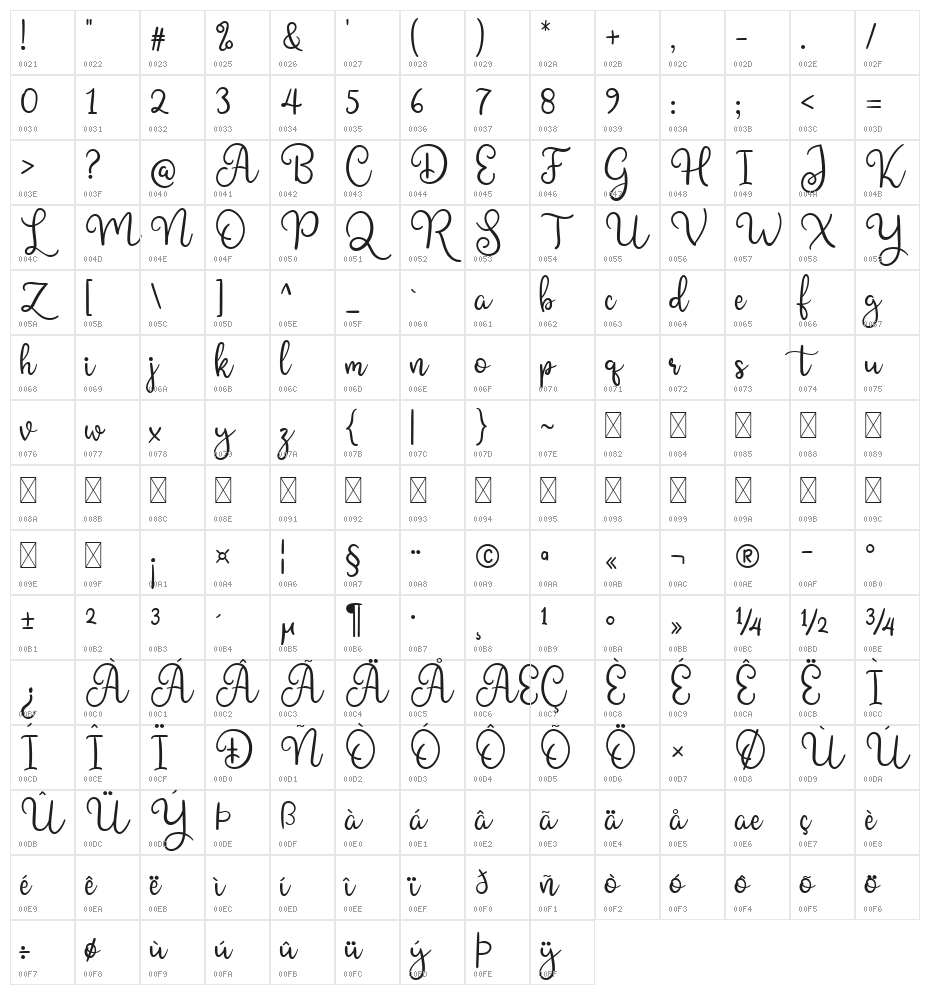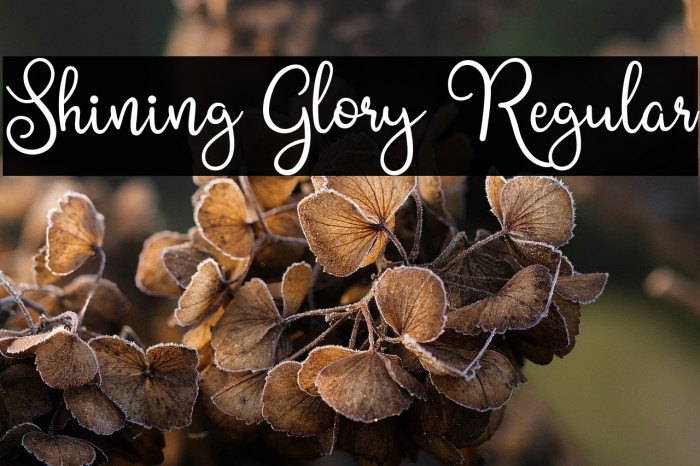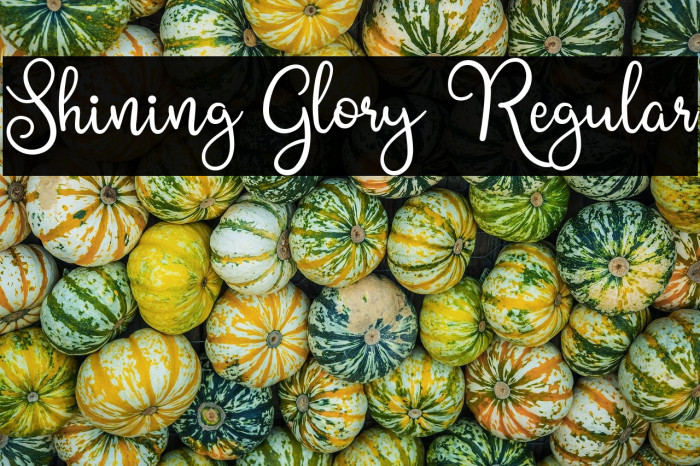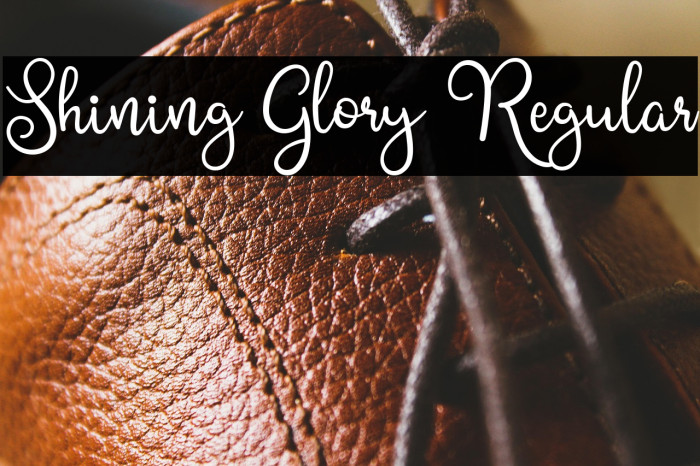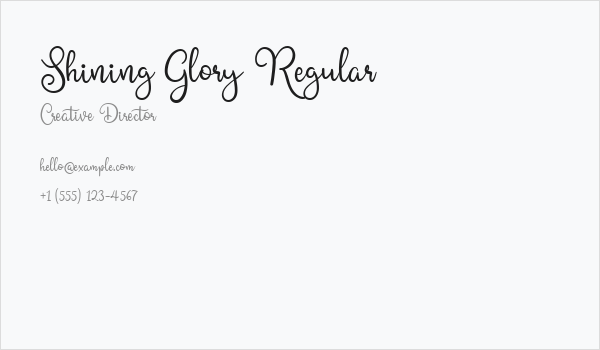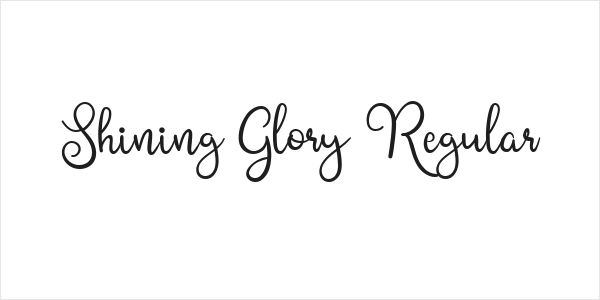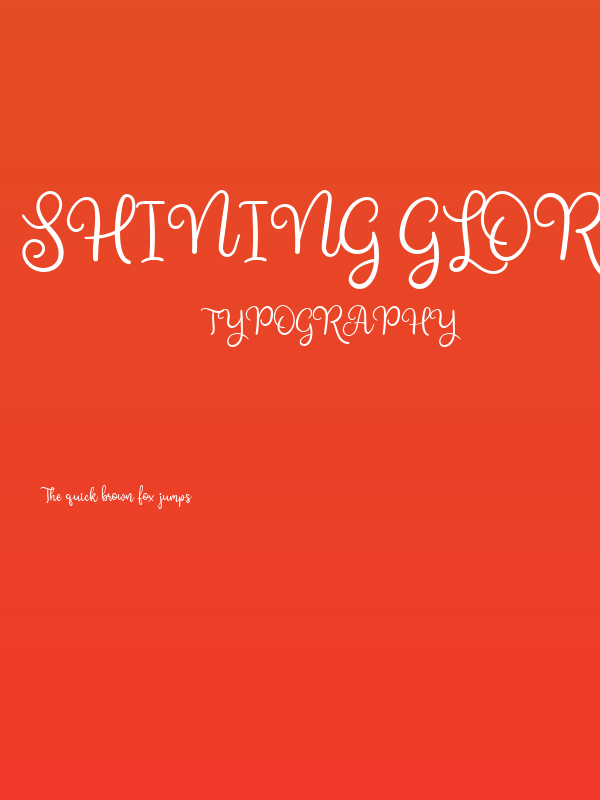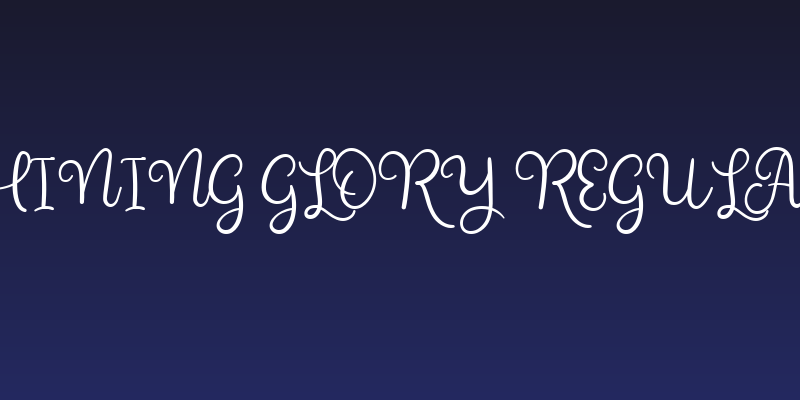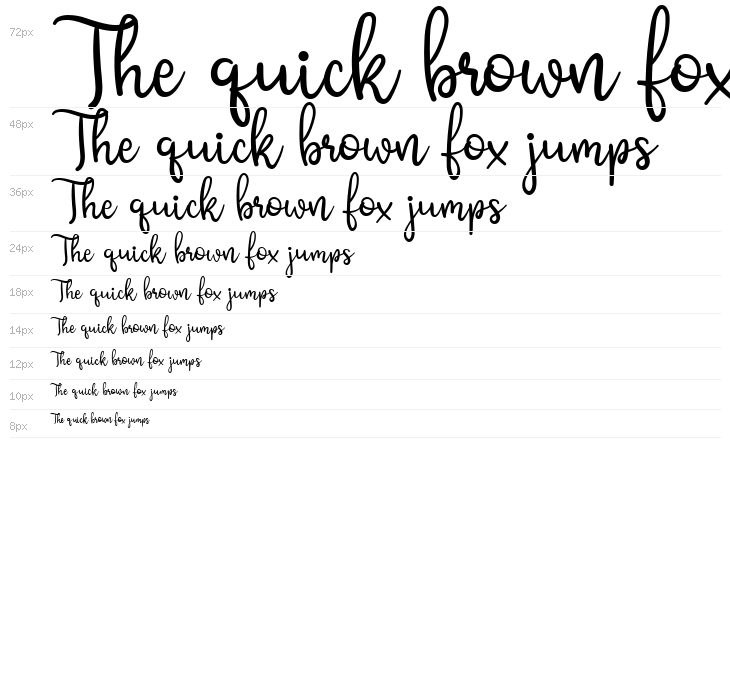
Shining Glory Regular Font
Shining Glory Regular Description
This font features a playful and elegant script style, characterized by its flowing, cursive letterforms. The uppercase letters are distinct with a whimsical flair, while the lowercase letters maintain a smooth and connected appearance, enhancing the font's overall fluidity. The numerals are clear and consistent with the script style, making them easily readable. Special characters are thoughtfully designed to match the font's aesthetic, ensuring a cohesive look across all text elements. The font's design is suitable for adding a personal touch to any project, with its charming and inviting appearance.
| Proposed Projects | Ideal for wedding invitations, greeting cards, branding, and social media graphics. |